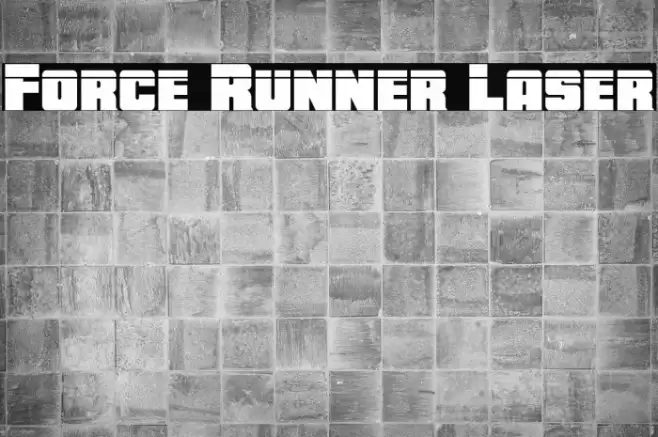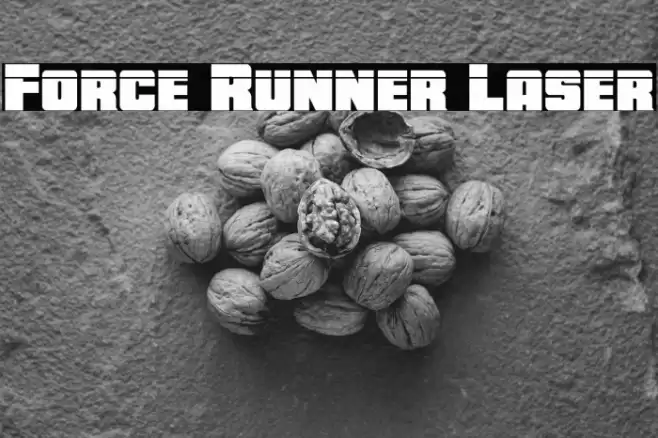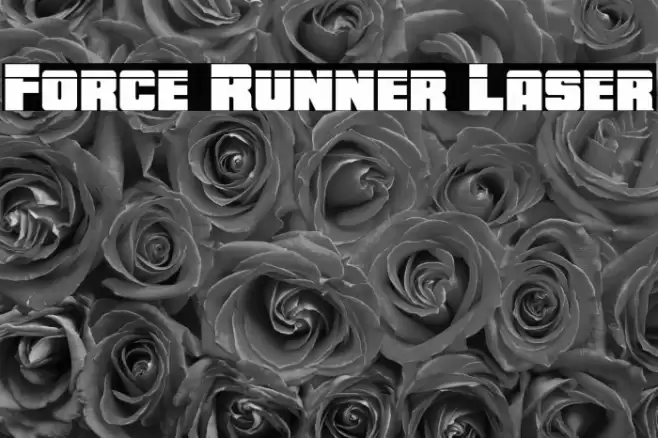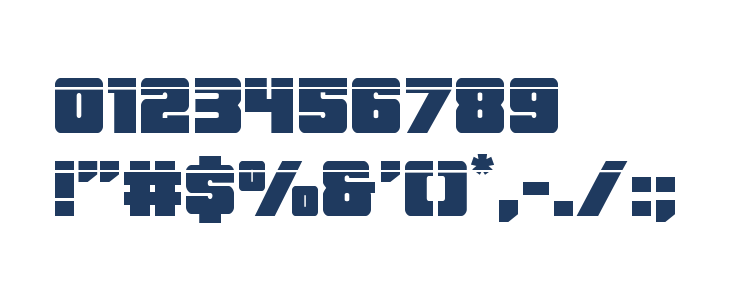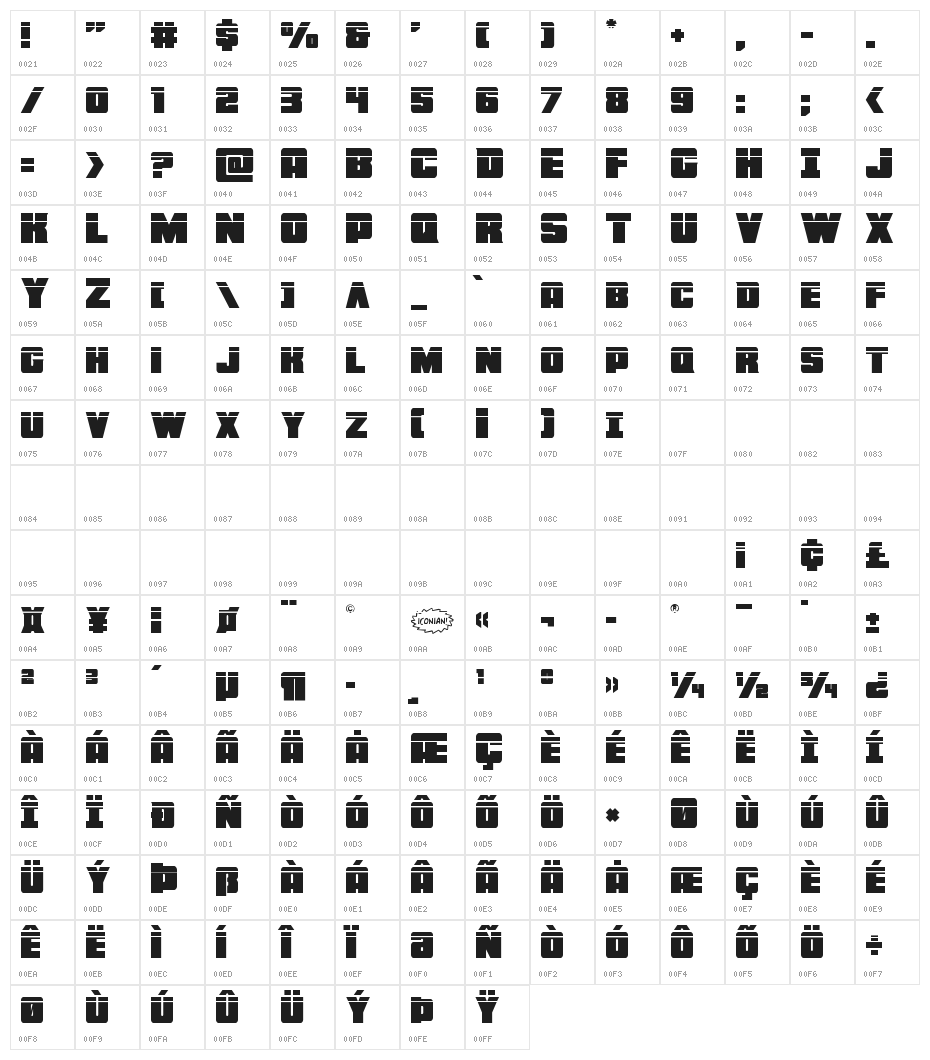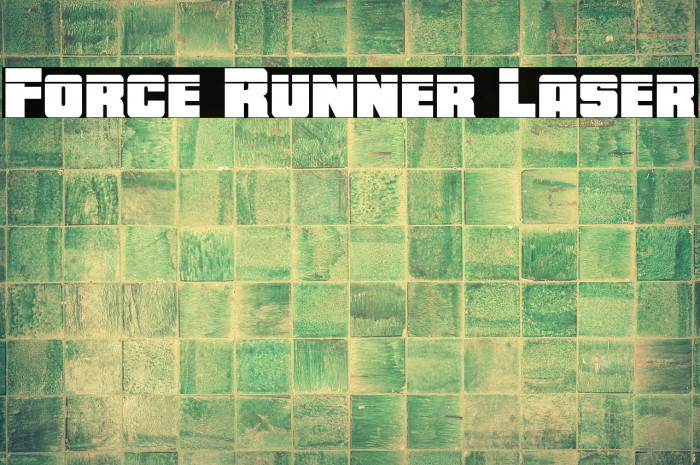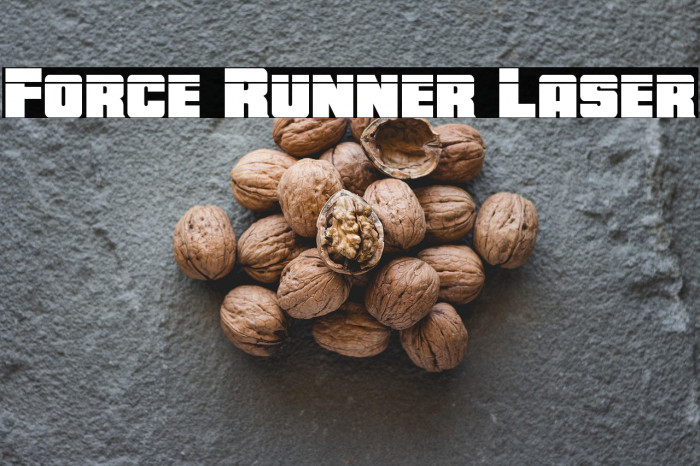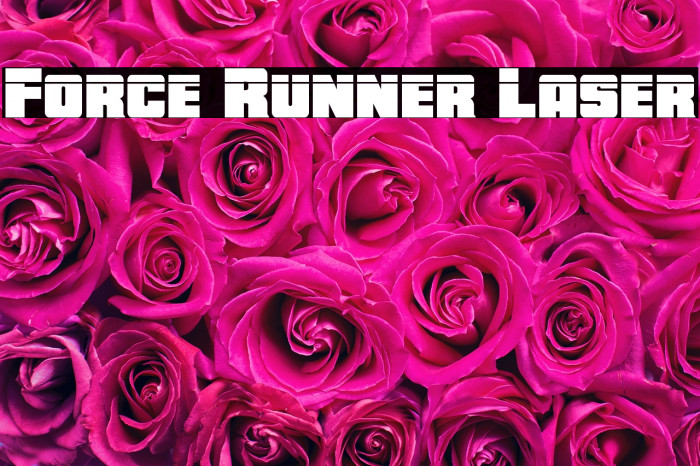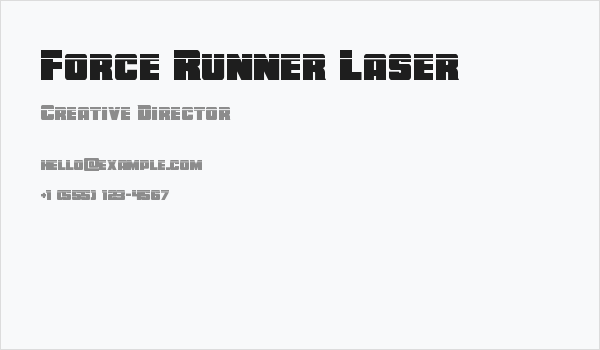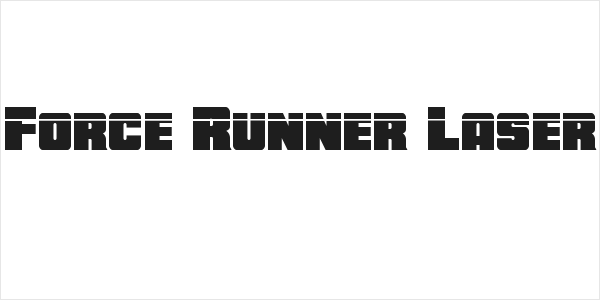
Force Runner Laser Font
Force Runner Laser Description
This bold and futuristic font features a strong, geometric design with sharp angles and a blocky appearance. The characters are uniformly wide, giving a sense of stability and strength. The uppercase letters are particularly striking, with a consistent height and width that create a cohesive look. The numbers and special characters maintain the same boldness, ensuring readability and impact. This font's design is reminiscent of digital displays or sci-fi themes, making it ideal for projects that require a modern and tech-savvy aesthetic.
A bold, geometric font with a futuristic, tech-inspired design from Regular fonts.
- Proposed Projects: Ideal for sci-fi movie posters, video game titles, tech company logos, and futuristic-themed event flyers.
- Overall Style: Futuristic